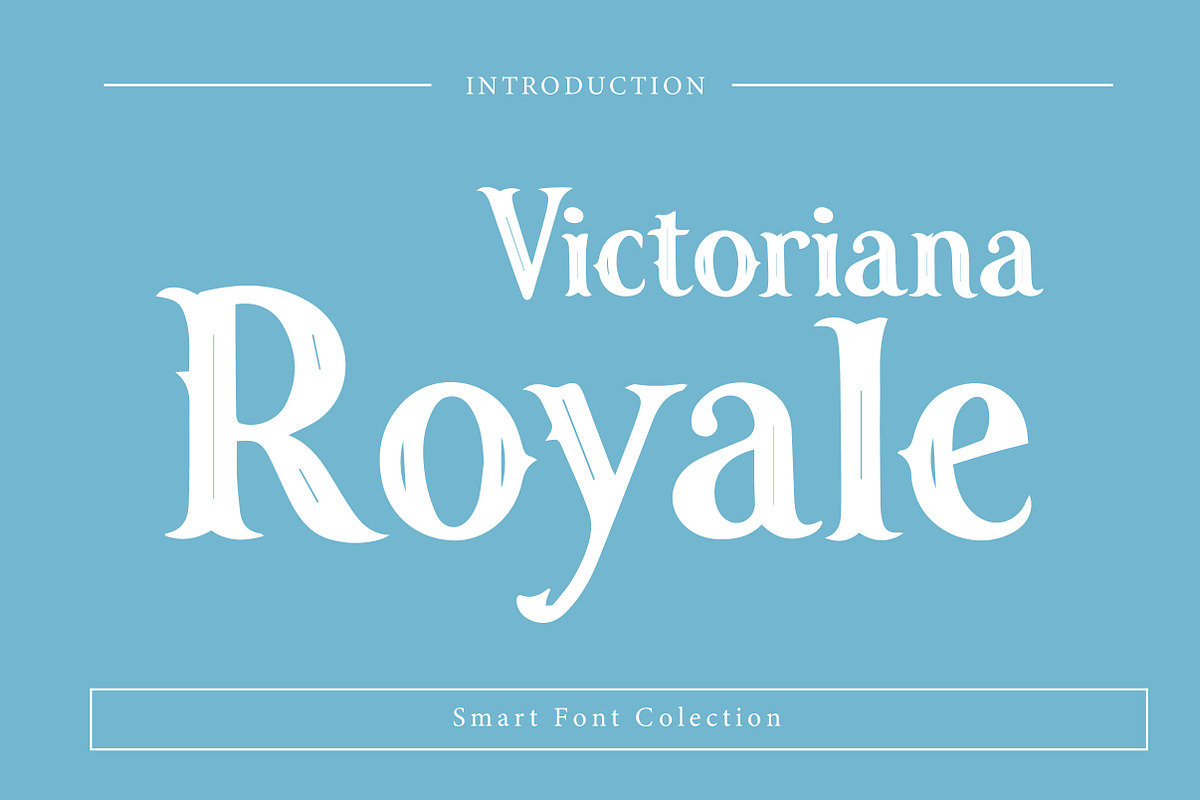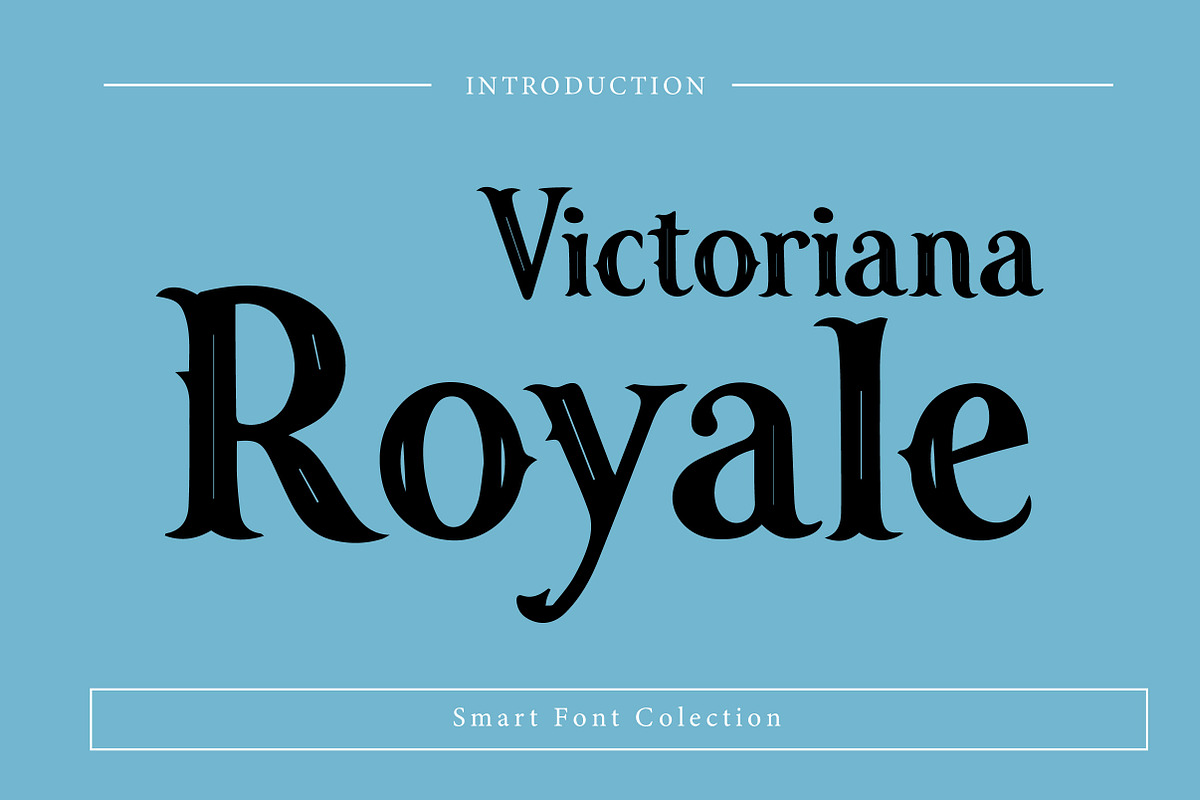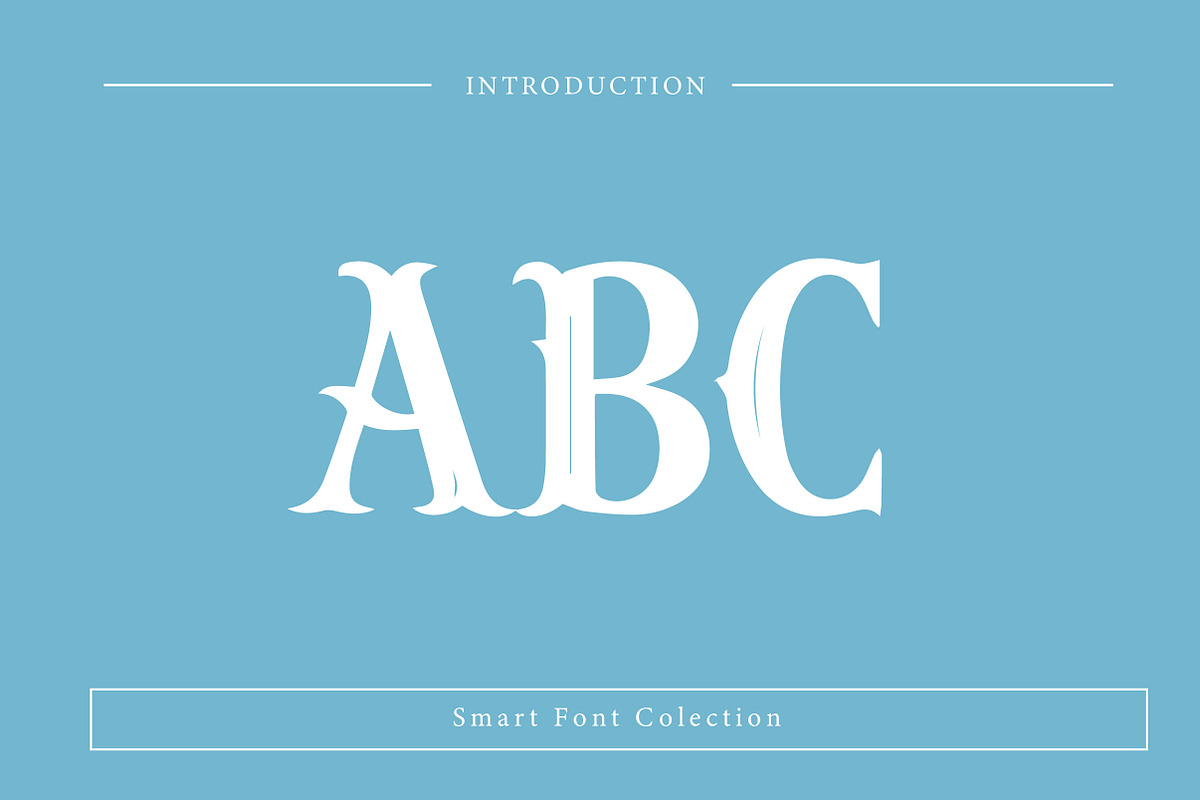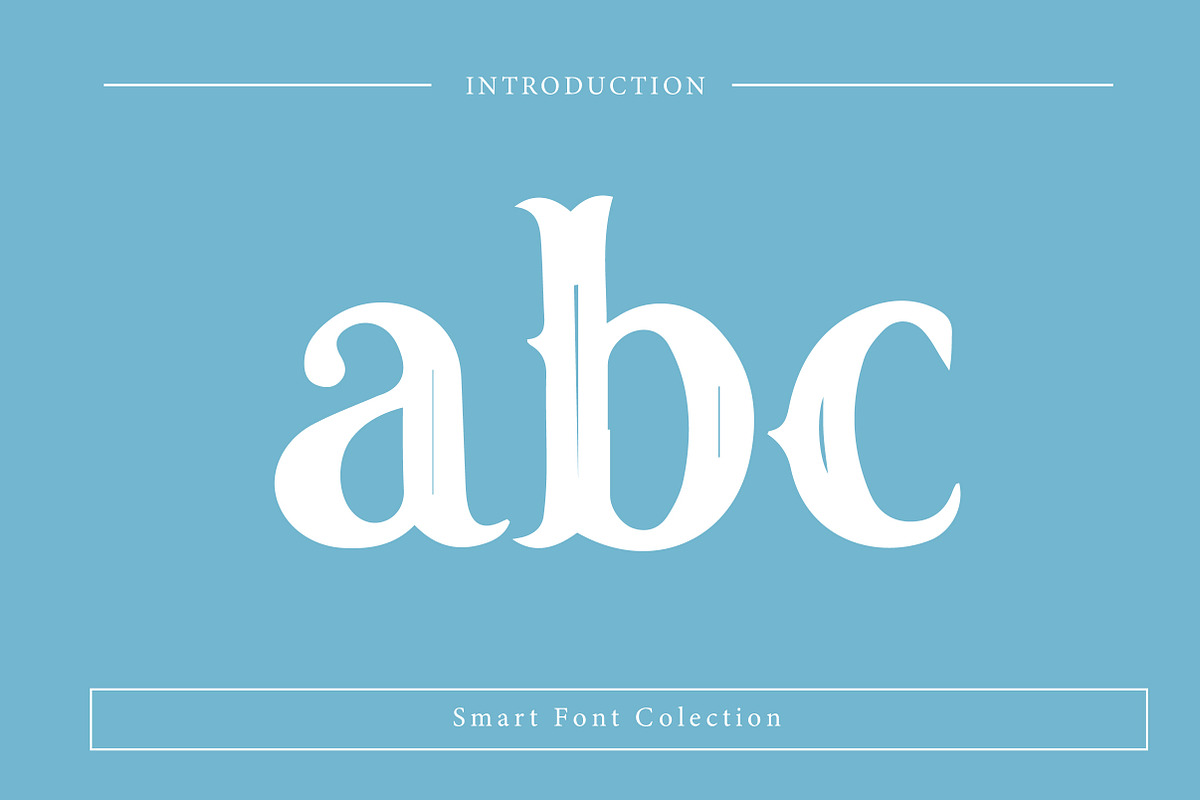
Victoriana Royale
Victoriana Royale is an elegant and luxurious serif display font inspired by classic Victorian typography and royal aesthetics. Featuring refined letterforms, high-contrast strokes, and ornamental details, this font is perfect for logos, branding, book covers, invitations, posters, packaging, and premium editorial designs. Victoriana Royale brings a timeless, noble, and sophisticated character to any project that demands class, heritage, and elegance.